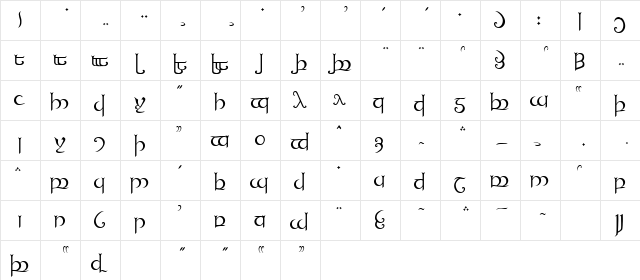
Tengwanda Namarie Regular
Design Context for Tengwanda Namarie Typeface
Tengwanda Namarie takes a measured approach to typography — its balanced proportions and neutral character make it a reliable workhorse for both digital and print work.